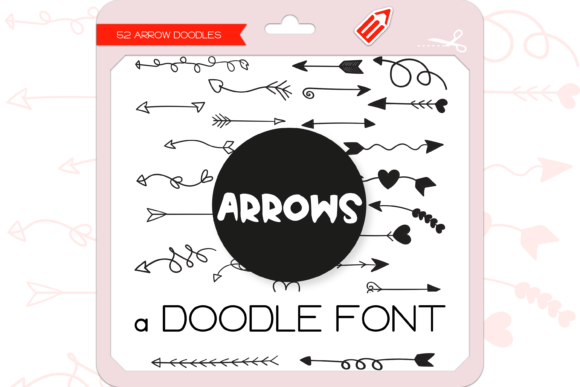
Introducing the Arrows Dingbats Font: A Fun and Trendy Addition to Your Design Toolkit
Are you tired of using the same old boring fonts and design elements in your projects? Look no further! The Arrows dingbats font is here to take your designs to the next level with its 52 hand-drawn doodles that are sure to add a touch of fun and whimsy to any project.
What is the Arrows Dingbats Font?
The Arrows dingbats font is a unique and creative font that features 52 hand-drawn doodles, including arrows, shapes, and other design elements. These doodles can be used as borders, dividers, and frames to add visual interest to your designs. Whether you’re a designer, crafter, or DIY enthusiast, this font is perfect for anyone looking to add a personal touch to their projects.
How to Use the Arrows Dingbats Font
The Arrows dingbats font is incredibly versatile and can be used in a variety of ways to enhance your designs. Here are a few ideas to get you started:
- Borders and Frames: Use the doodles as borders and frames to add a decorative touch to your designs. You can use them to separate sections of text, highlight important information, or simply add a visual element to your page.
- Dividers: Use the arrows and shapes to create dividers that separate sections of text or images. This is a great way to add visual interest to your designs and make them more engaging.
- Decorative Elements: Use the doodles as decorative elements to add a touch of personality to your designs. You can use them to highlight specific information, create a theme, or simply add a fun and playful element to your page.
- Custom Illustrations: Use the doodles as a starting point to create custom illustrations. You can combine multiple doodles to create a unique image or use them as inspiration to create your own illustrations.
Benefits of Using the Arrows Dingbats Font
There are many benefits to using the Arrows dingbats font in your designs. Here are a few:
- Unique and Creative: The Arrows dingbats font is a unique and creative way to add visual interest to your designs. The hand-drawn doodles are sure to make your designs stand out from the crowd.
- Versatile: The Arrows dingbats font is incredibly versatile and can be used in a variety of projects, from digital designs to print projects.
- Time-Saving: The font saves you time and effort by providing you with a library of pre-made doodles that you can use in your designs. This means you don’t have to spend hours creating your own illustrations from scratch.
Who Can Benefit from the Arrows Dingbats Font?
The Arrows dingbats font is perfect for anyone who loves to design, craft, or DIY. Here are a few examples of who can benefit from this font:
- Graphic Designers: Graphic designers can use the Arrows dingbats font to add a touch of personality to their designs. The font is perfect for creating social media graphics, blog posts, and other digital content.
- Crafters: Crafters can use the font to add a personal touch to their projects, such as scrapbooking, card making, and other paper crafts.
- DIY Enthusiasts: DIY enthusiasts can use the font to create custom signs, labels, and other decorative elements for their home or office.
- Small Business Owners: Small business owners can use the font to create custom branding elements, such as logos, business cards, and social media graphics.
The Arrows dingbats font is a fun and trendy font that is sure to add a touch of personality to any project. With its 52 hand-drawn doodles, you can create unique and creative designs that are sure to stand out from the crowd. Whether you’re a designer, crafter, or DIY enthusiast, this font is a must-have in your design toolkit.